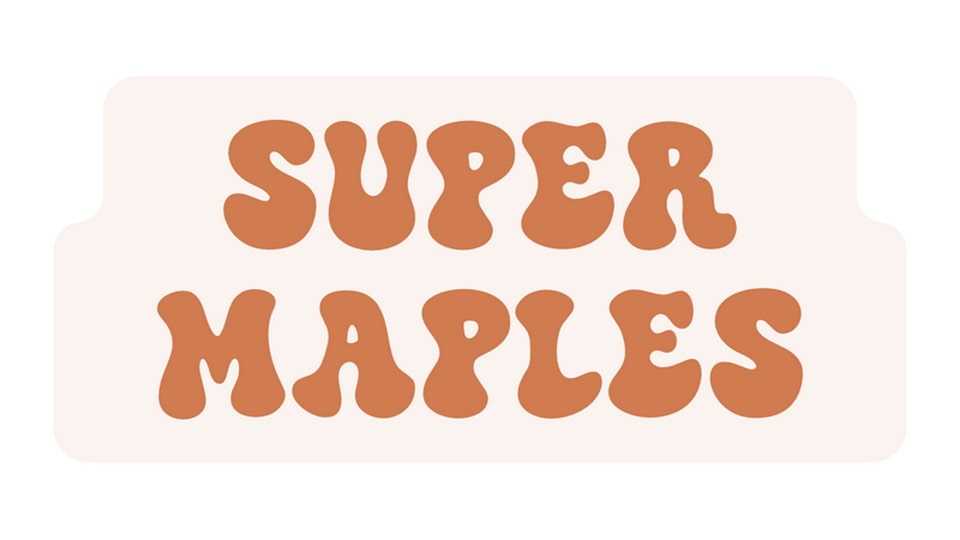
Download Super Maples font, a bold and playful display typeface inspired by organic shapes and groovy 70s aesthetics. Its bubbly, uneven letterforms create a sense of fun and movement.